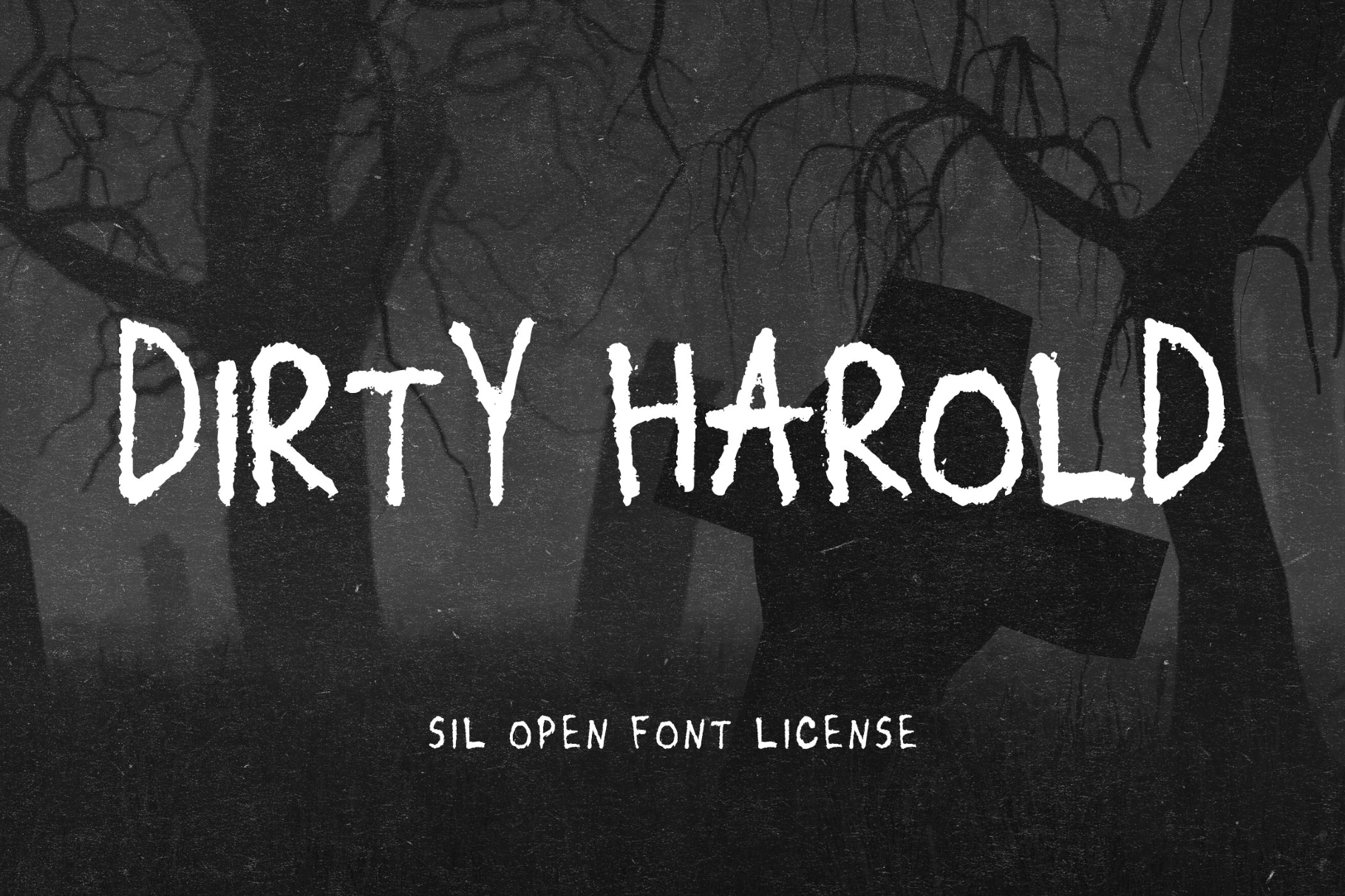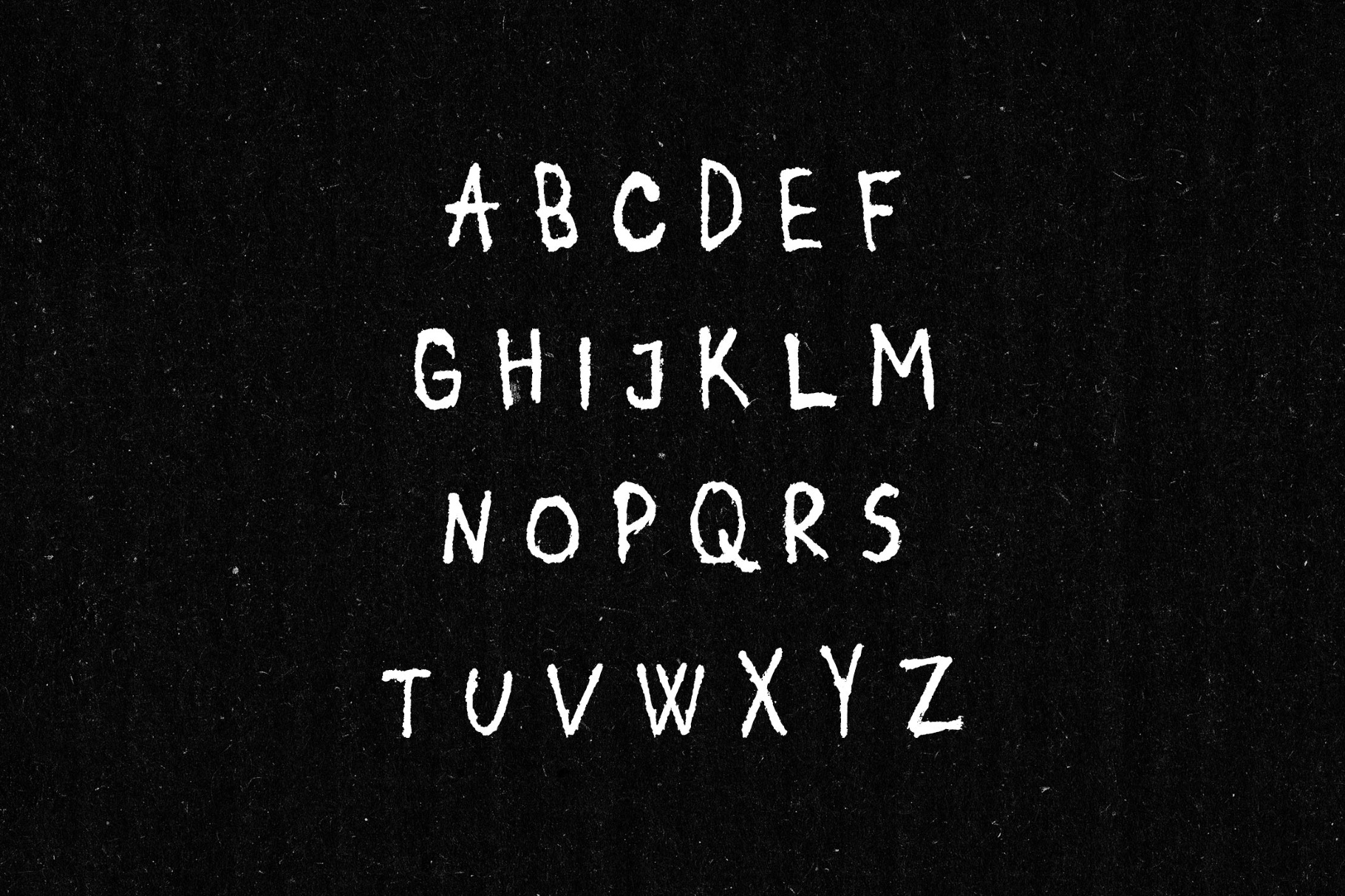
Dirty Harold - Creepy Chalk Font
Dirty Harold is driven by loose strokes, fast and uncontrolled. The lines shift in thickness and direction, leaving behind a painted look with visible imperfections and rough edges.
The shapes don’t stay clean and work across a wide range of bold visuals — posters, album artwork, streetwear graphics, packaging, and social media content. The brush style adds a craft finish, making it suitable for branding, headlines, and layouts.